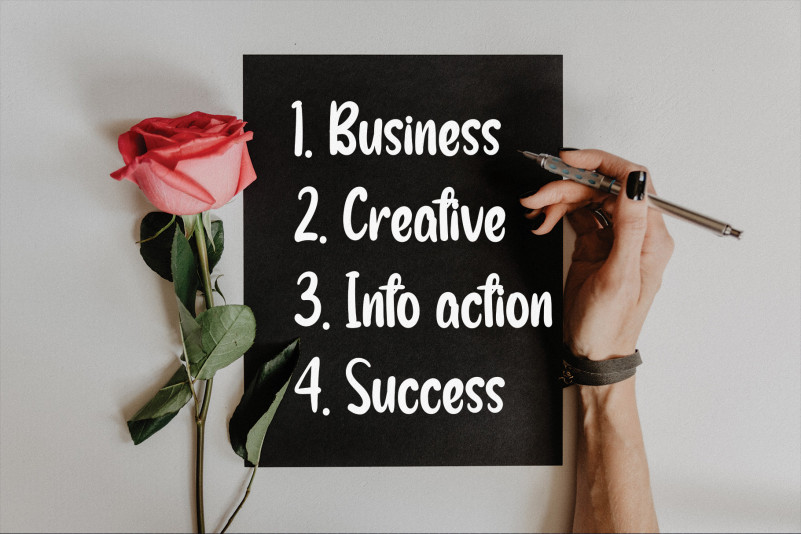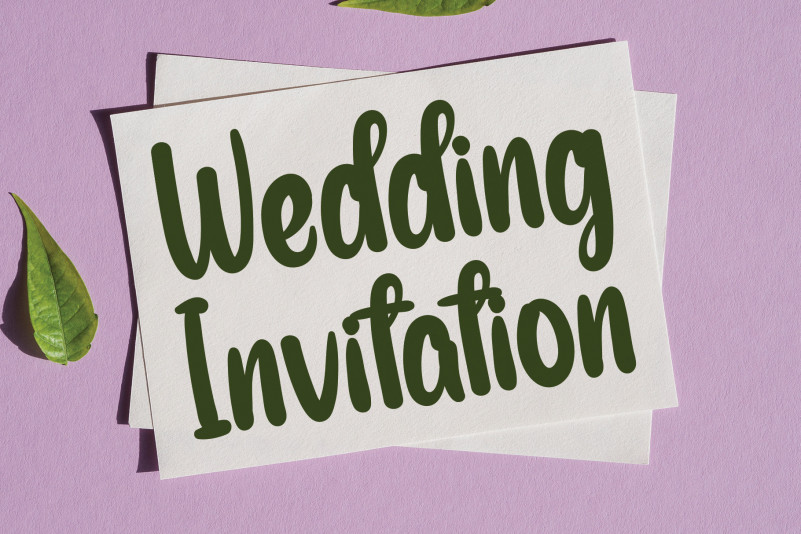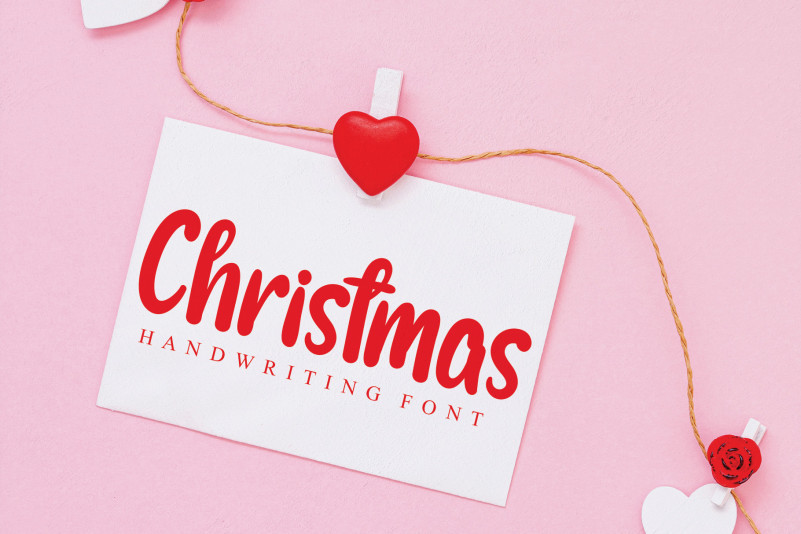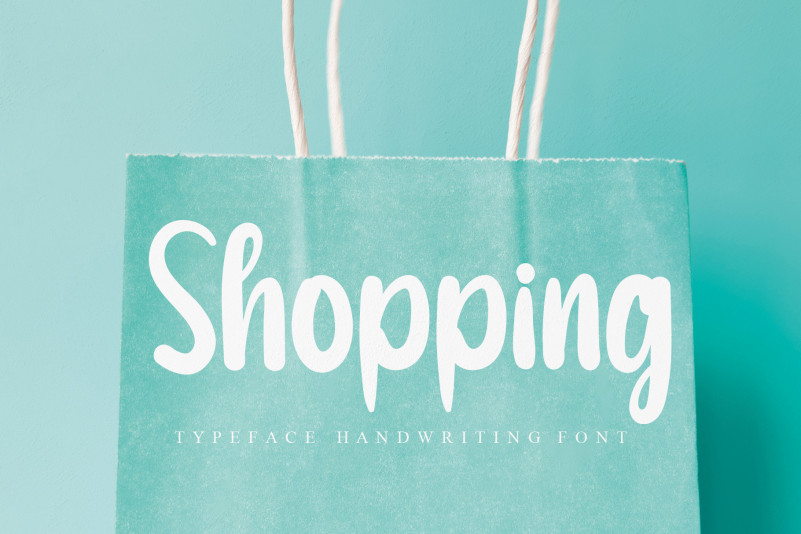
Welcome Newyear Script Font
Welcome Newyear Script Font is a bold and casual handwritten font. Fall in love with its incredibly versatile style and use it to create spectacular designs!